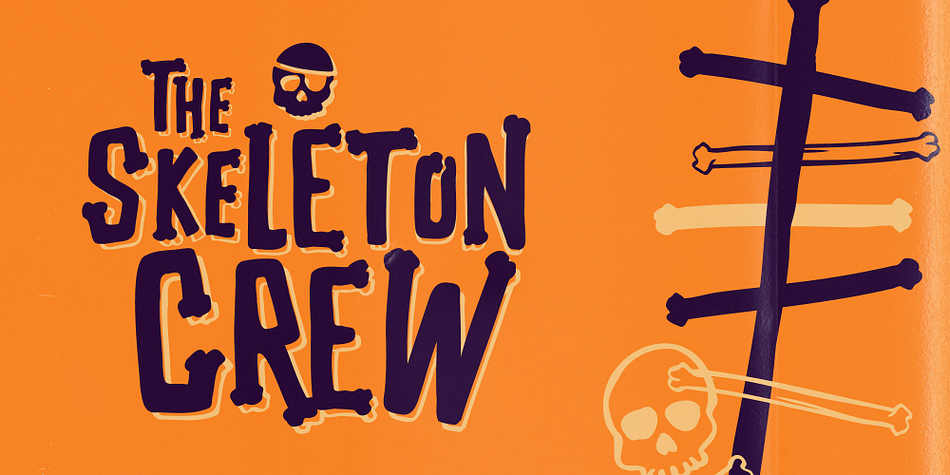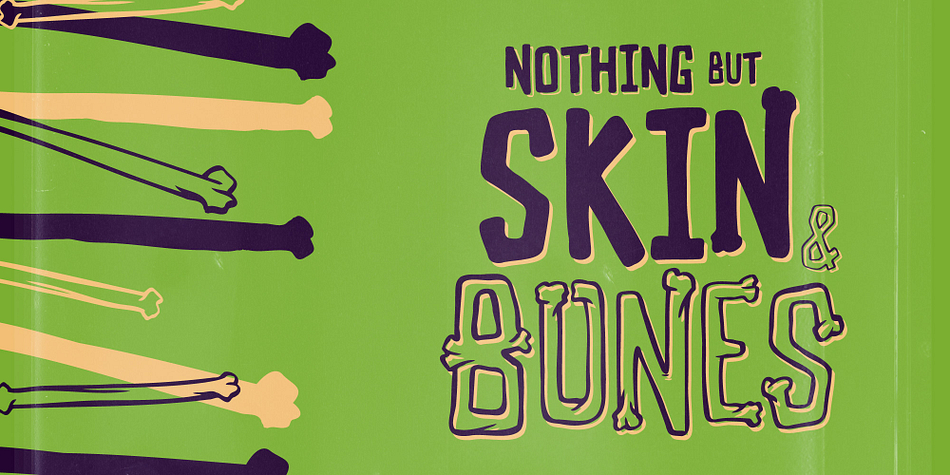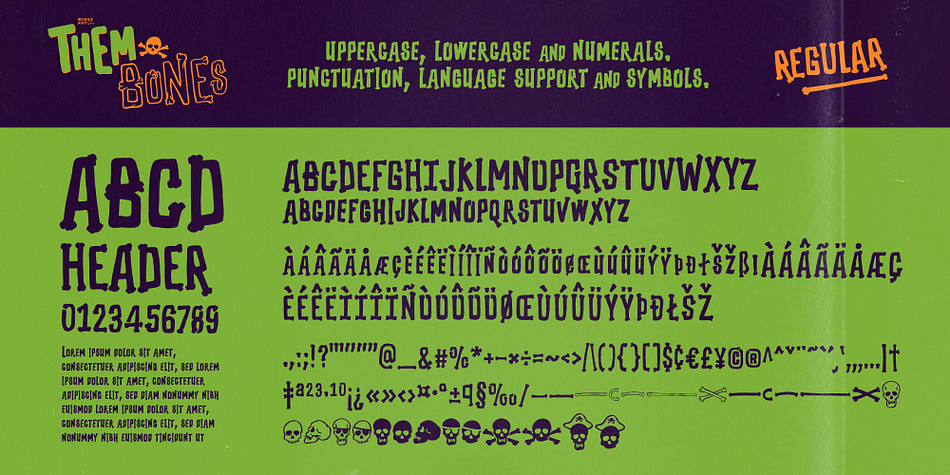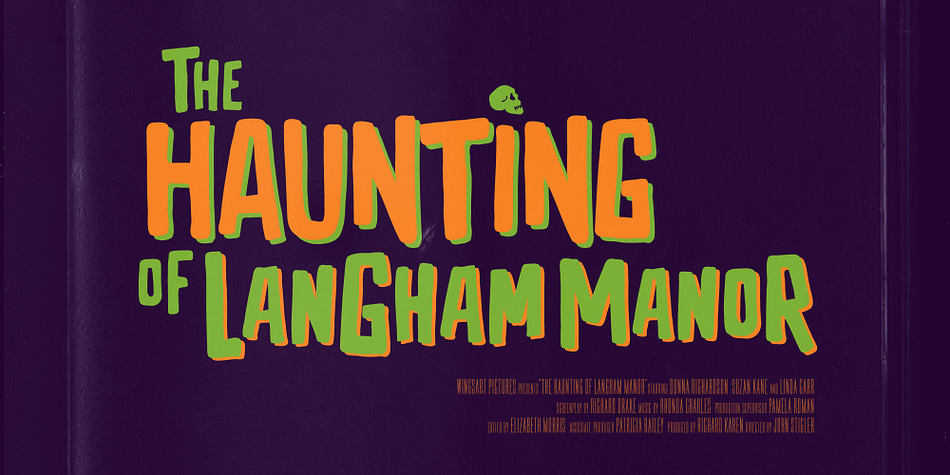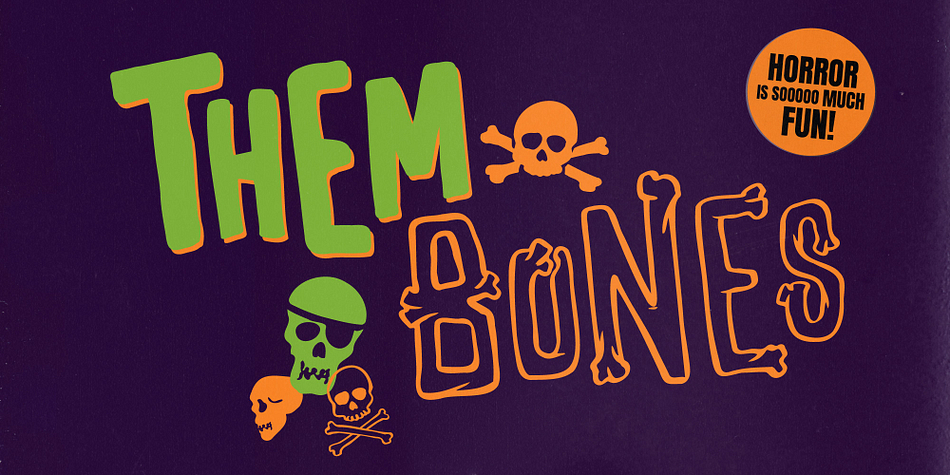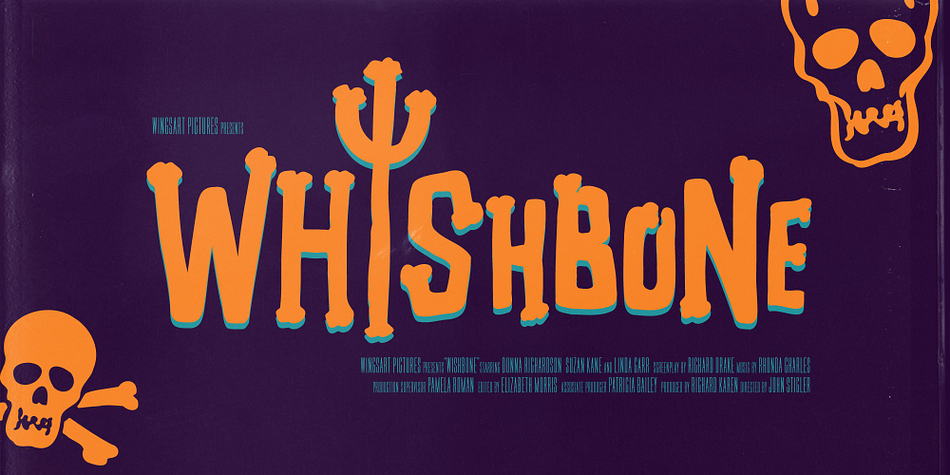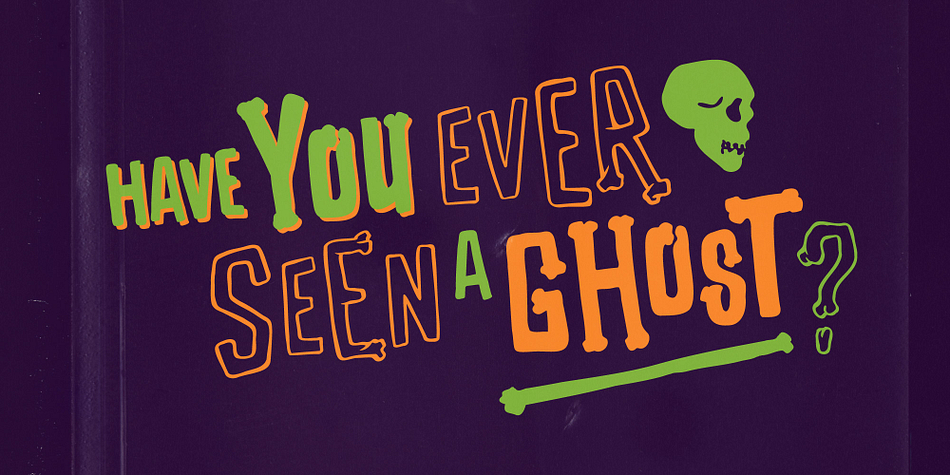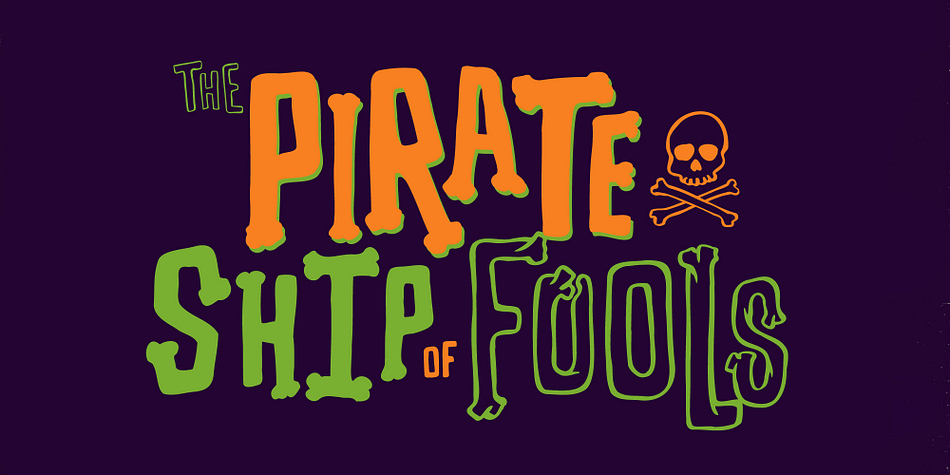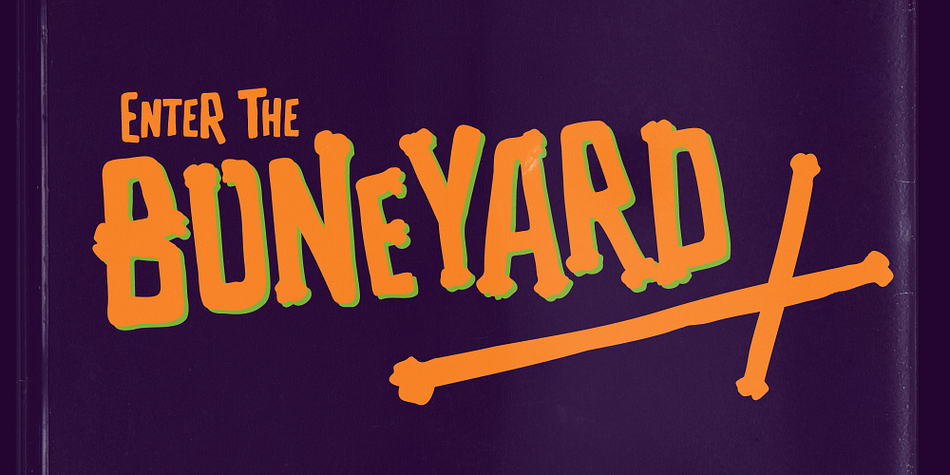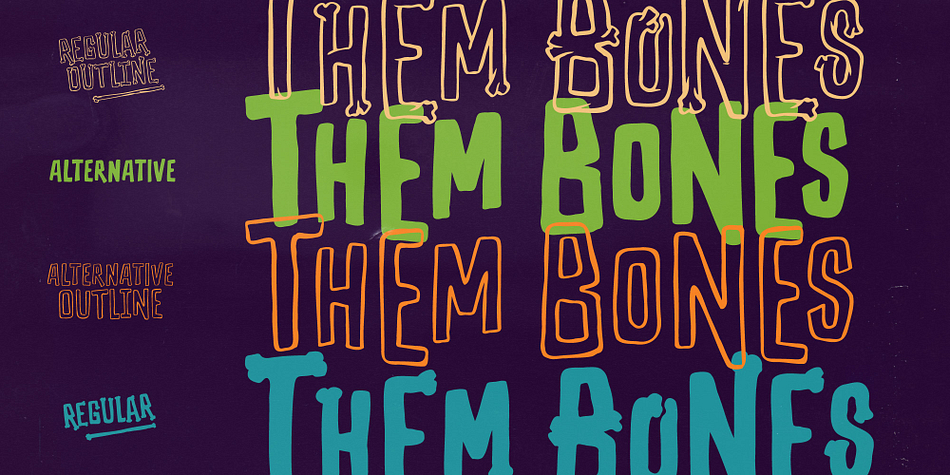
Them Bones
Them Bones is a display slab and dingbat font family. This typeface has five styles and was published by Wingsart Studio.
A Hand-drawn, Spooky, Halloween Ghost Pirate, Cartoon Font.
Them Bones is a hand-drawn and spooky font made from the remains of ancient skeletons and ghostly pirate ships. It has a fun, light-hearted design inspired by campfire tales, Saturday morning cartoons, kids’ adventure movies, and vintage comic books.
This unique all-caps font comes in two flavours - a novelty design that’s drawn to appear like old bones, and a clean, versatile alternative that works great on its own or as contrasting characters. Each of these comes with a hand-drawn outlined version with their imperfections intact for an authentic inky look.
It’s a great choice for light-hearted Halloween designs or adventure stories with a fun, gruesome edge!